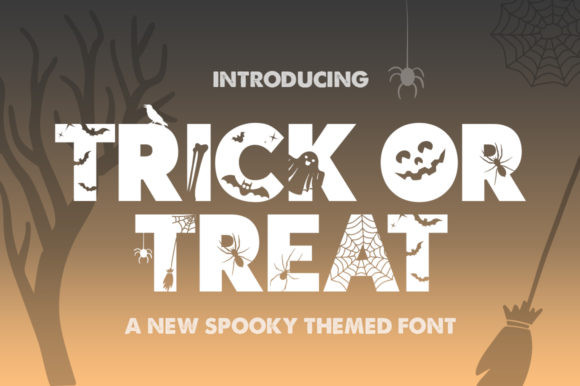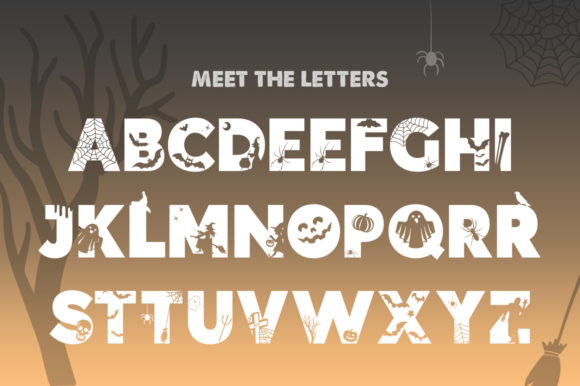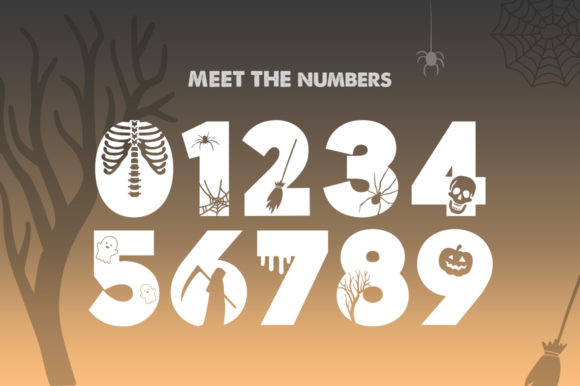
Trick or Treat Font
Trick or Treat is a great display font. It features a spooky look and Halloween-themed characters. Take your projects to the next level with this amazing font!